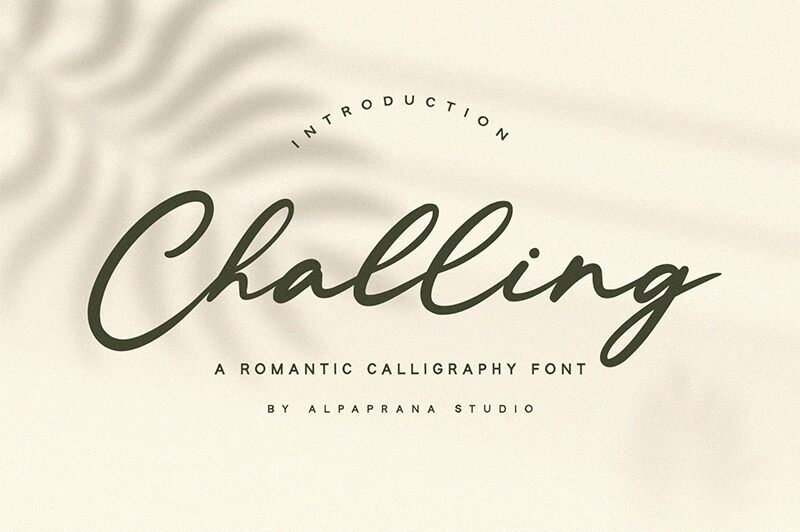
Challing font family is a free flowing handwritten script from Alpaprana Studio that impresses with its exceptionally romantic character. The cursive font, which is part of a family that comprises of 2 distinct font styles, possesses elegance, grace, and sophistication in every stroke, making it great not only for display purposes but also for the shorter runs of text. Perfectly suited for design projects that require a gentle and inviting outlook, Challing can light up your designs like no other. A typeface that beautifully weaves the classic charm of calligraphy with a modern touch, it is the epitome of expressive writing art.
Artistic sites, art galleries, greeting cards, marriage invitation cards, and book covers are some of the possible use cases where this beautiful font can showcase its beauty and artistic qualities. In addition to several branding projects, the font would also work well for packaging designs of luxury goods like perfumes. Extend your creativity to blogs, websites, and banners by showcasing your texts in Challing for maximum effect.